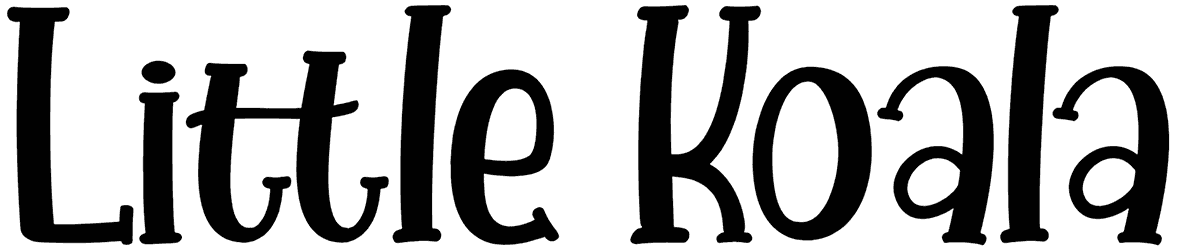
Little Koala Font
Little Koala can have a special place in your collection because of its childish look that is interesting for viewers of any age and creates excitement and happiness.
The use of rounded corners and visual stimuli in this cartoon font can throw any viewer into the middle of the childhood world and bring them a nostalgic feeling. This fancy font is what you need to get maximum attention in animations, children’s games, and animations.